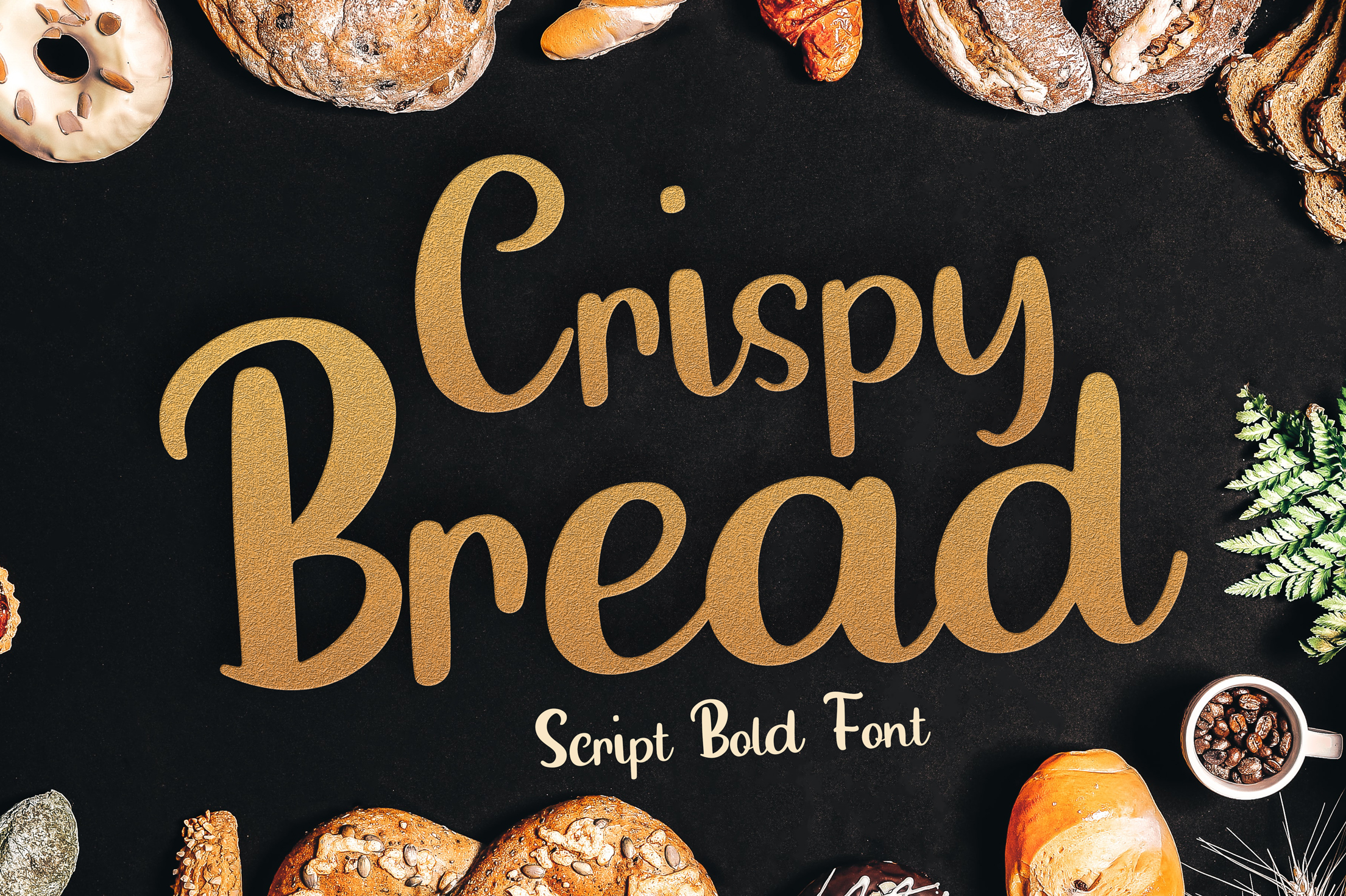
Crispy Bread Font
Designed by Muhammad Adnan
About Crispy Bread
Crispy Bread is a bold lettered and flowing script font. Fall for its ravishing style and use it to create gorgeous wedding invitations, beautiful stationary art, eye-catching social media posts, and much more!